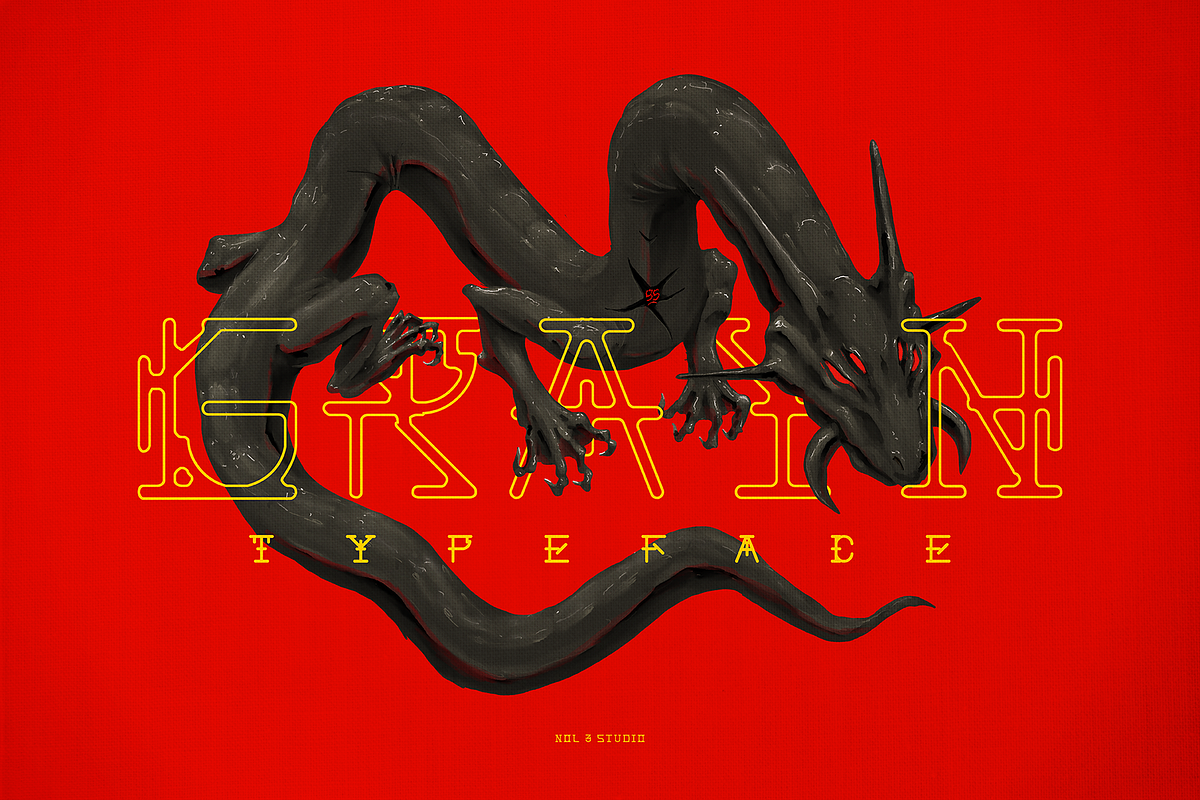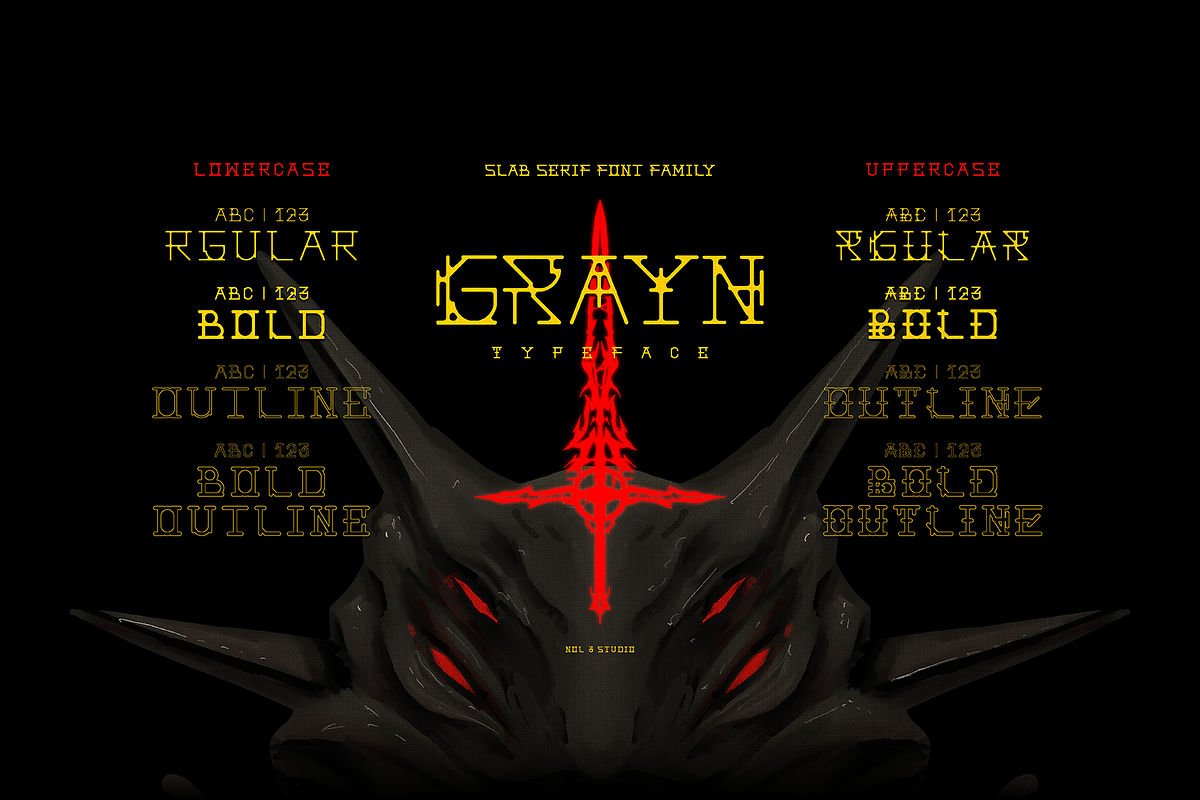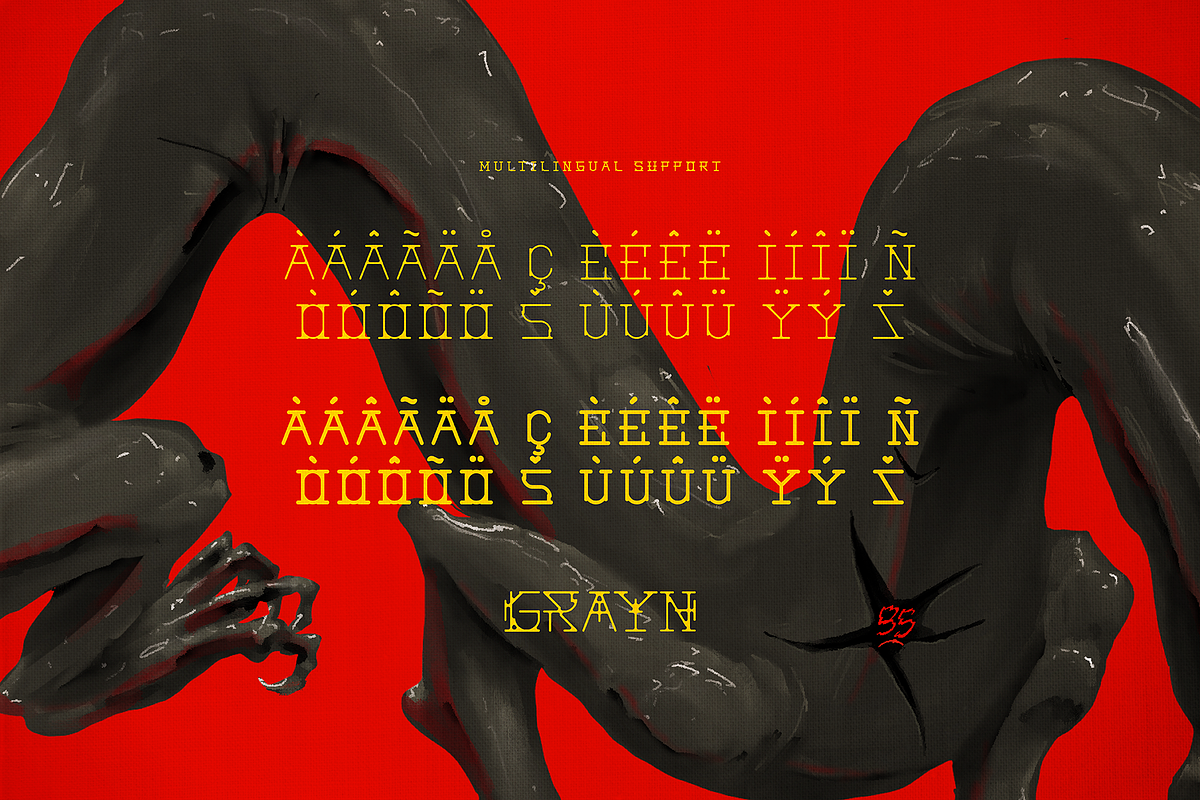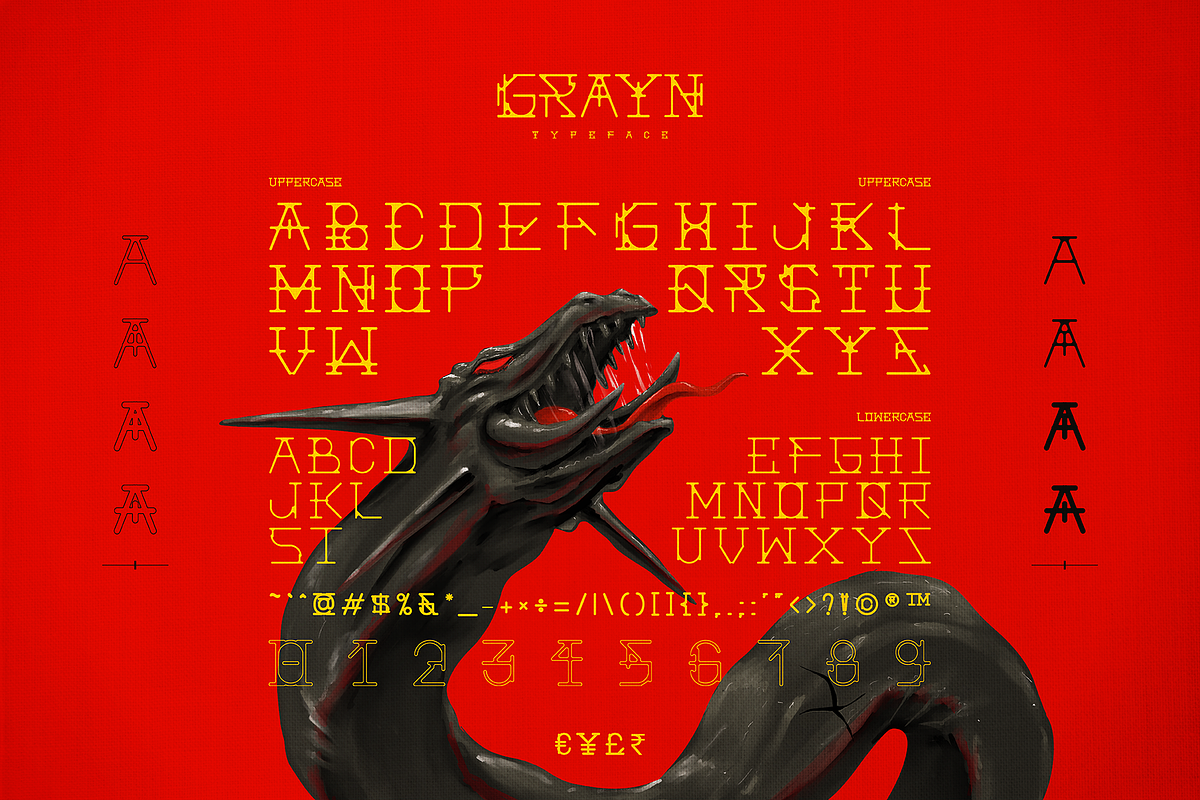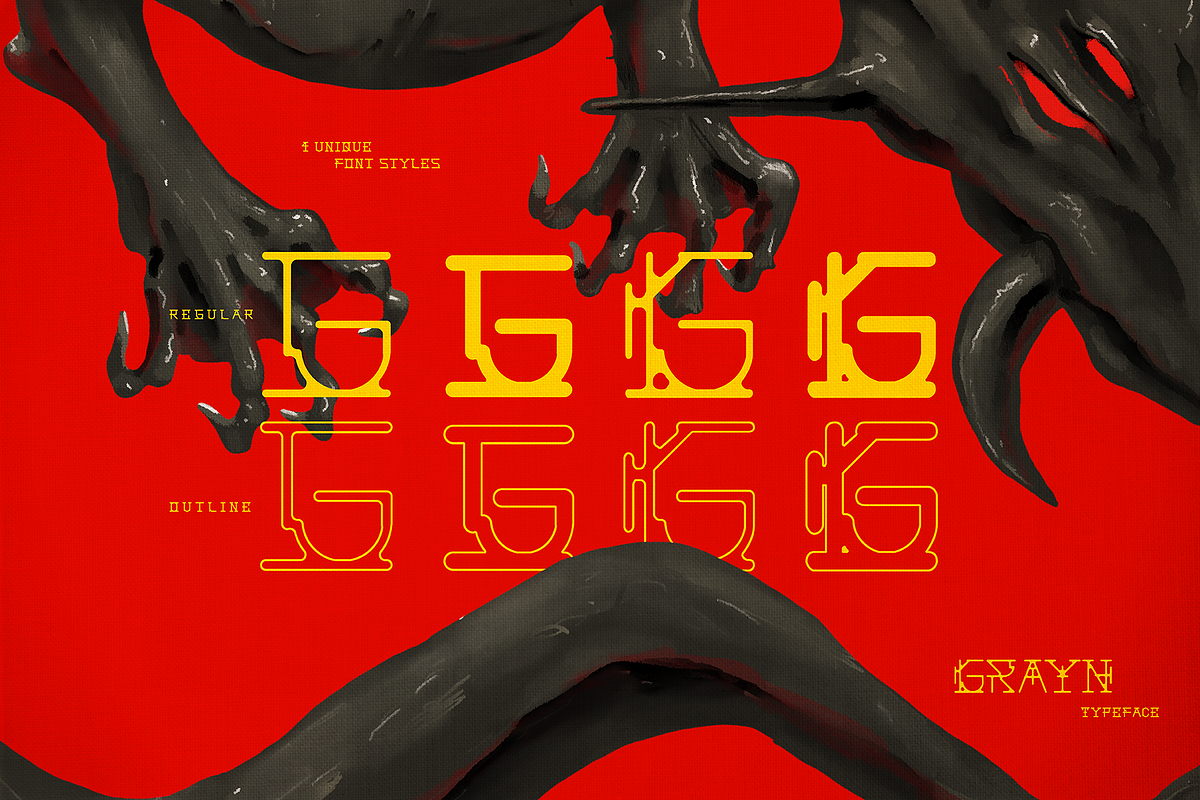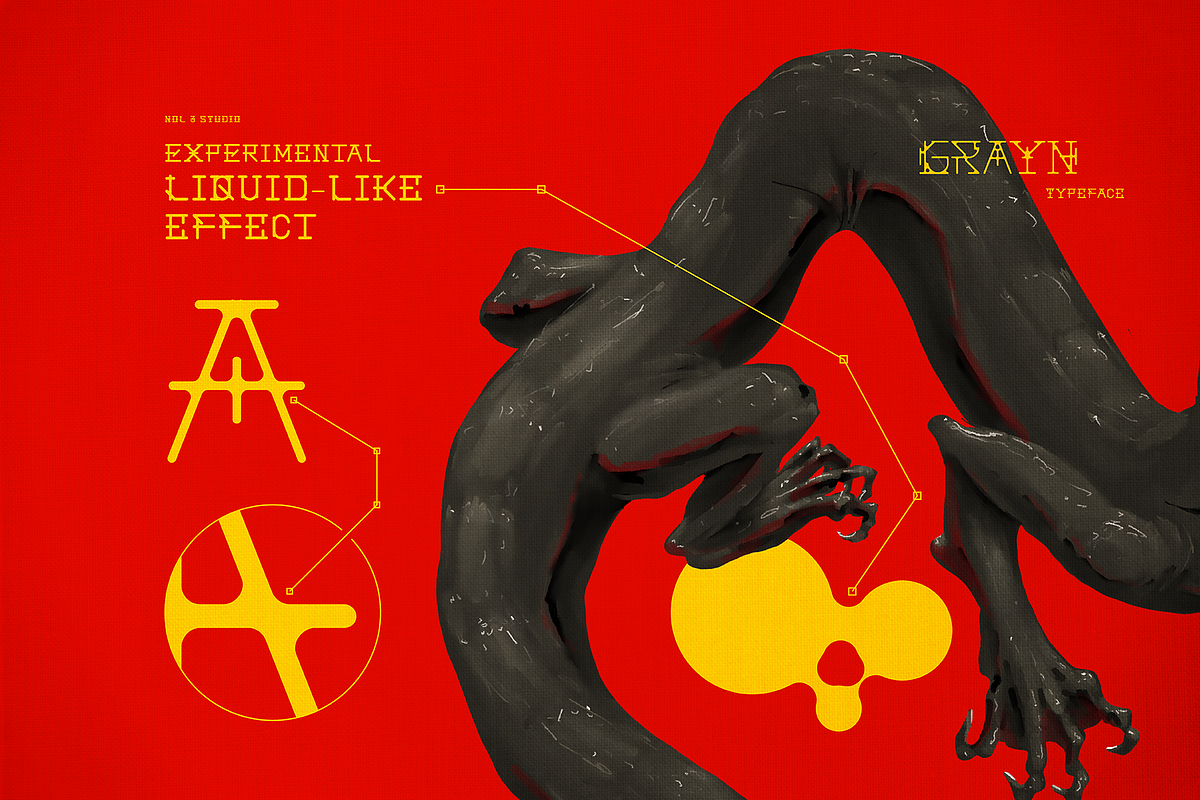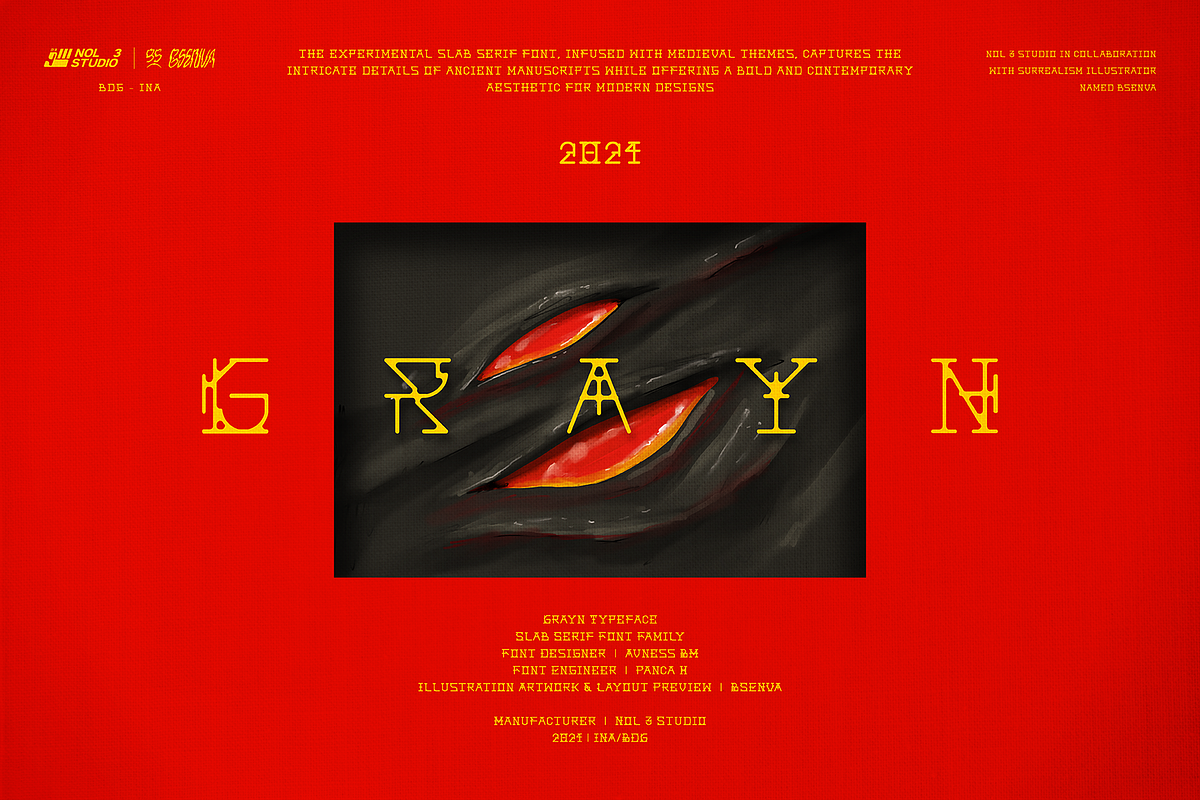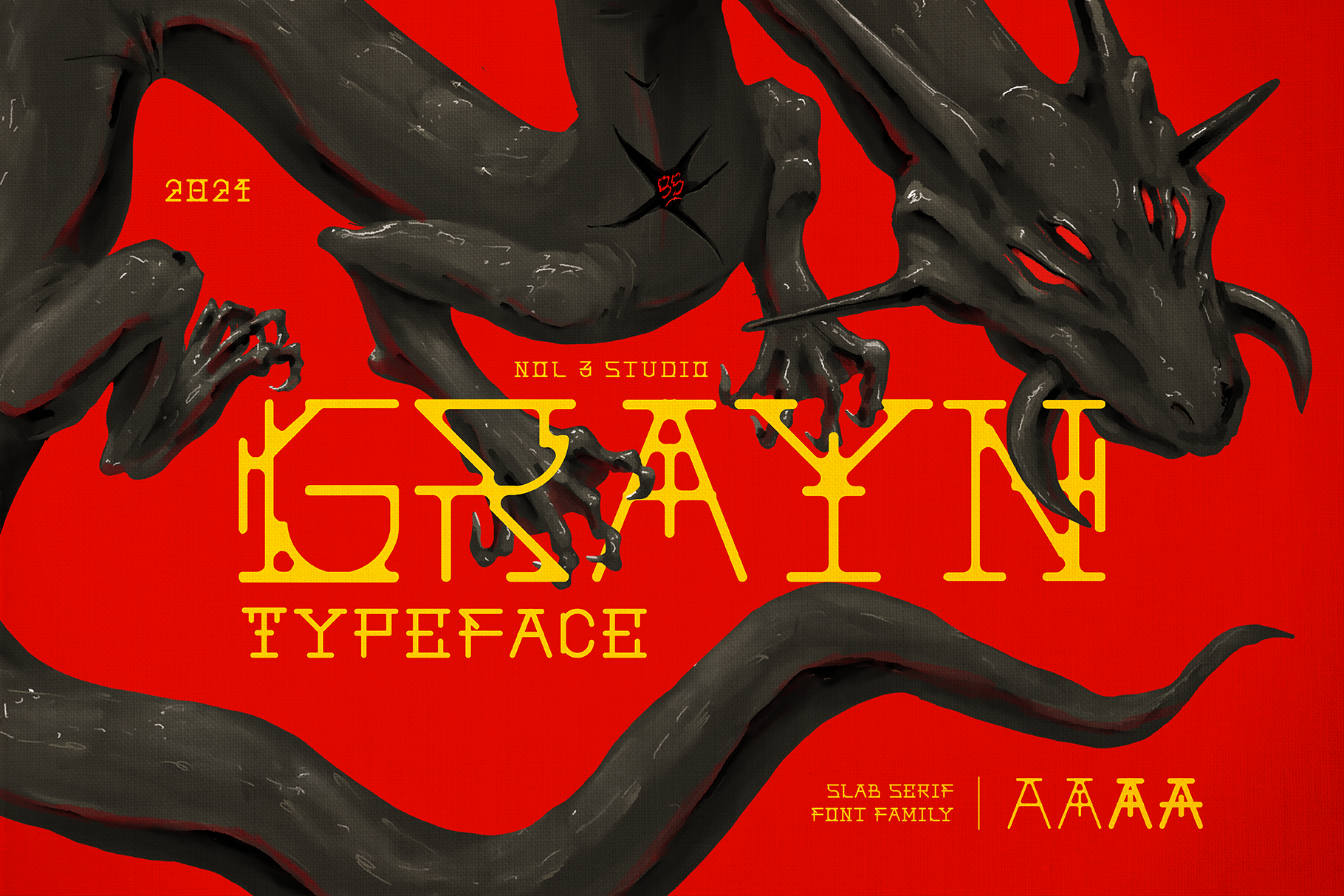
GRAYN | SLAB SERIF FONT FAMILY
Grayn Typeface, the experimental slab serif font, infused with medieval themes, captures the intricate details of ancient manuscripts while offering a bold and contemporary aesthetic for modern designs
The Font Contains 200+ Glyphs
4 Font Styles: Regular, Bold, Outline, Outline Bold
Uppercase, Lowercase, & Extra Stylistic Alternate